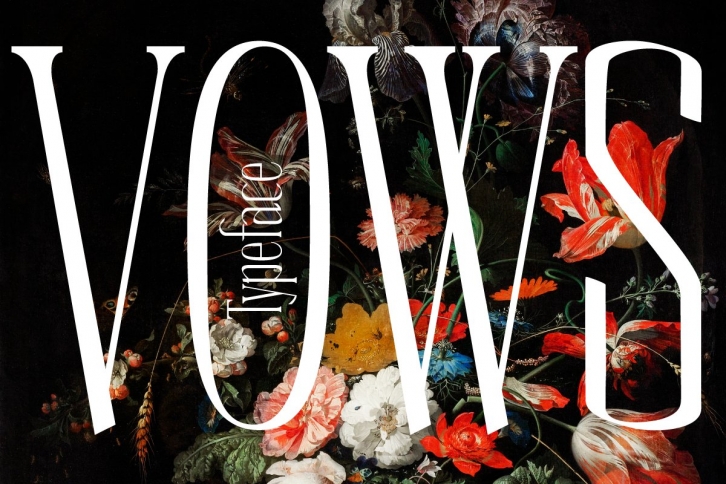
Vows is a Condensed serif Font
This versatile font can be used for wordmark logos, mastheads, pull quotes & monograms showing both feminine and masculine qualities.
- With numbers and punctuation